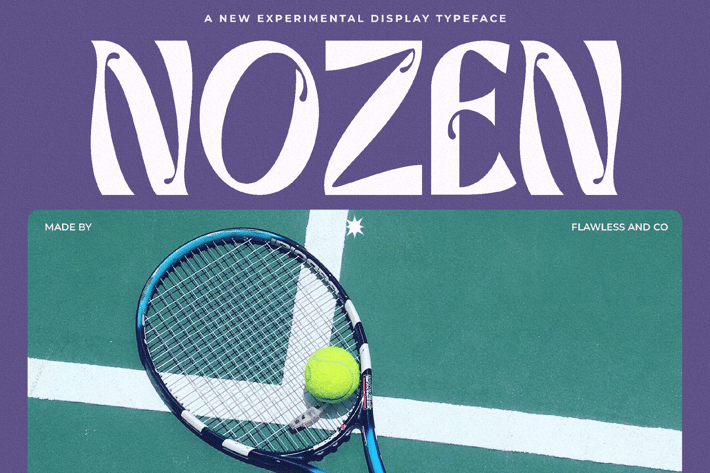
Nozen Display Font Typeface
Introducing "Nozen" - An Experimental Display Typeface, a captivating display typeface that defies convention and redefines the boundaries of typography. With its unconventional letterforms and unique style, "Nozen" is designed to be the bold centerpiece of your design, evoking a sense of innovation and artistic expression. This font is suitable for any graphic design, such as branding materials, invitations, magazines, posters, photography, etc.
Uppercase alphabet A-Z
Lowercase alphabet a-z
Alternate Character
Numbers 0-9
Some punctuation